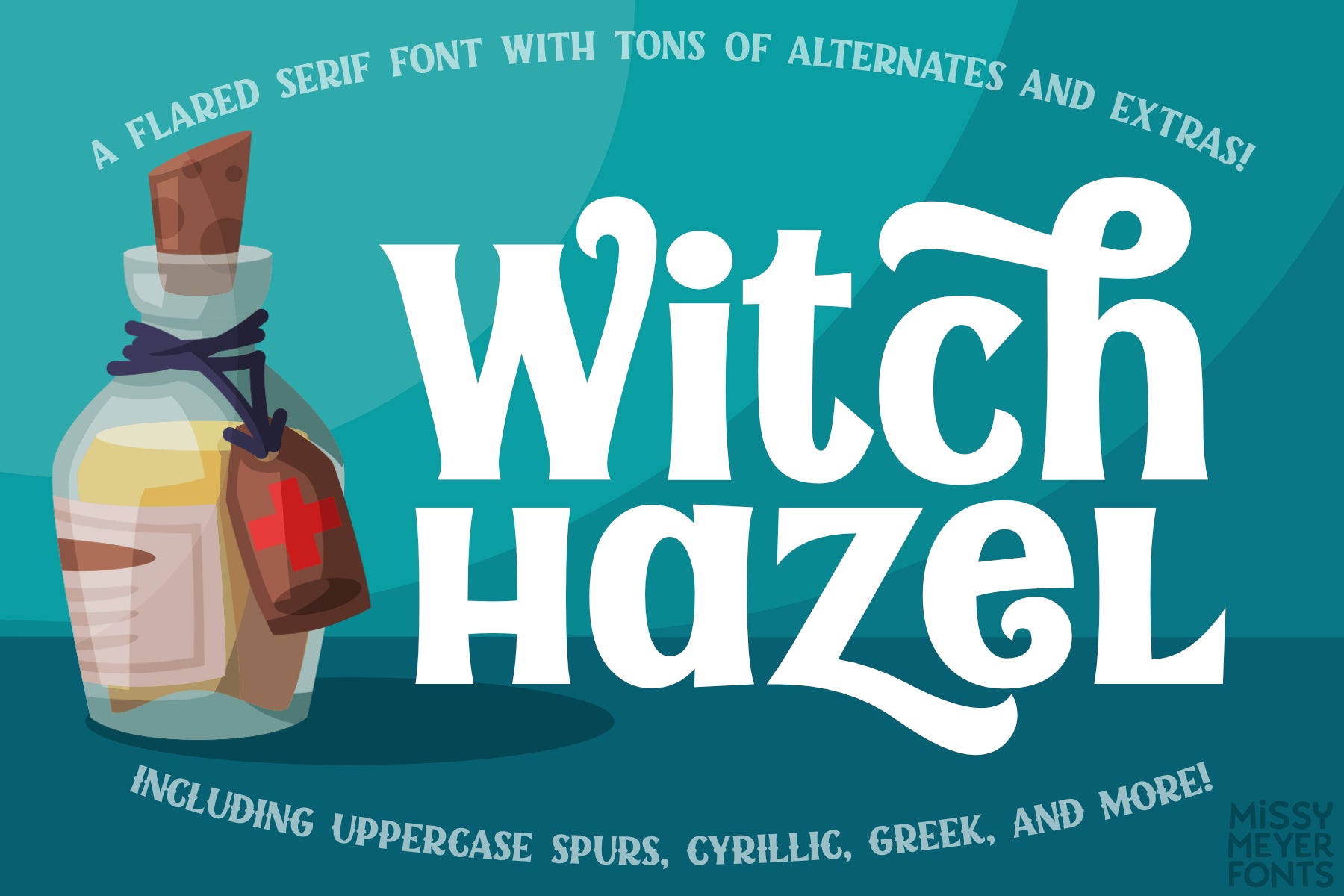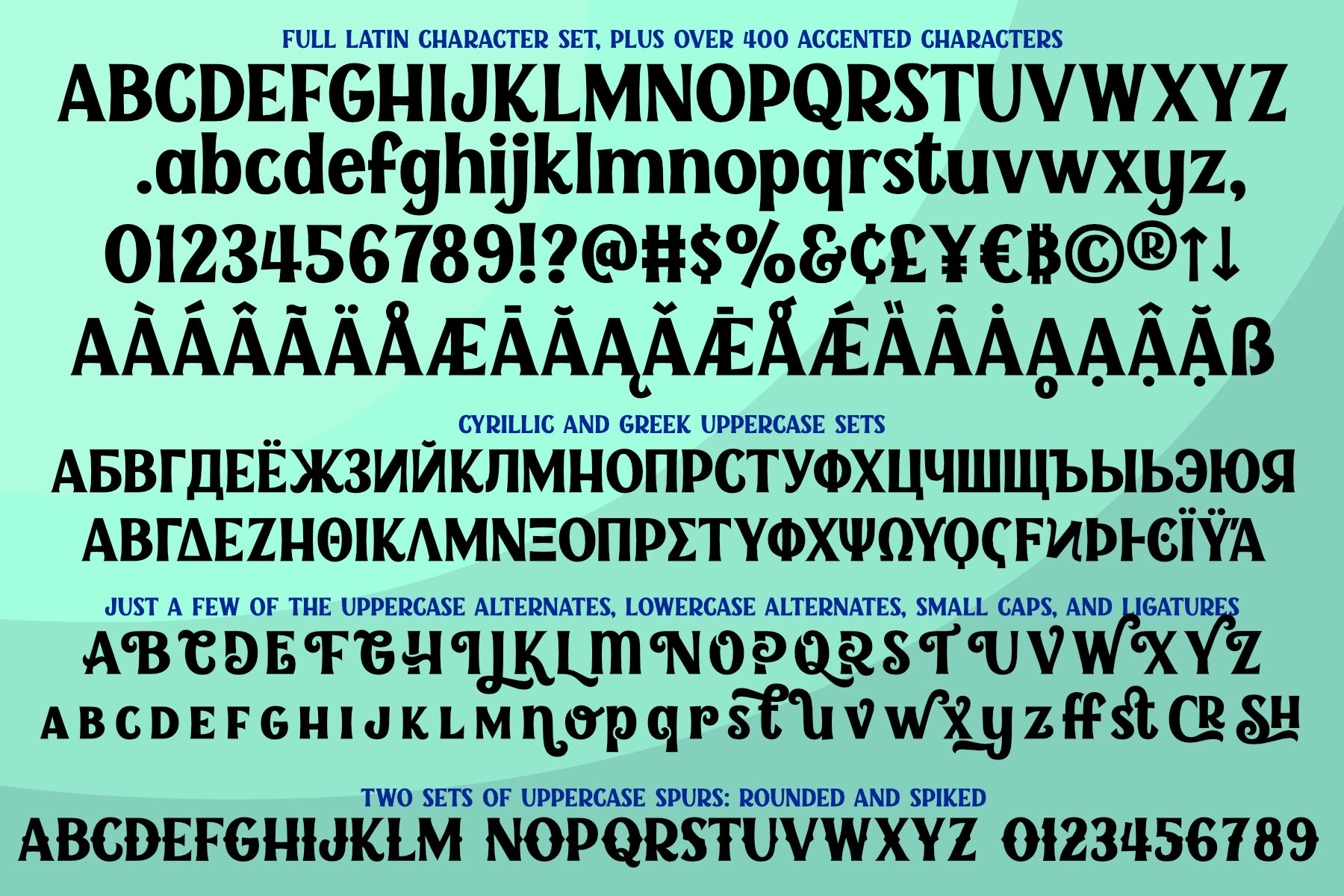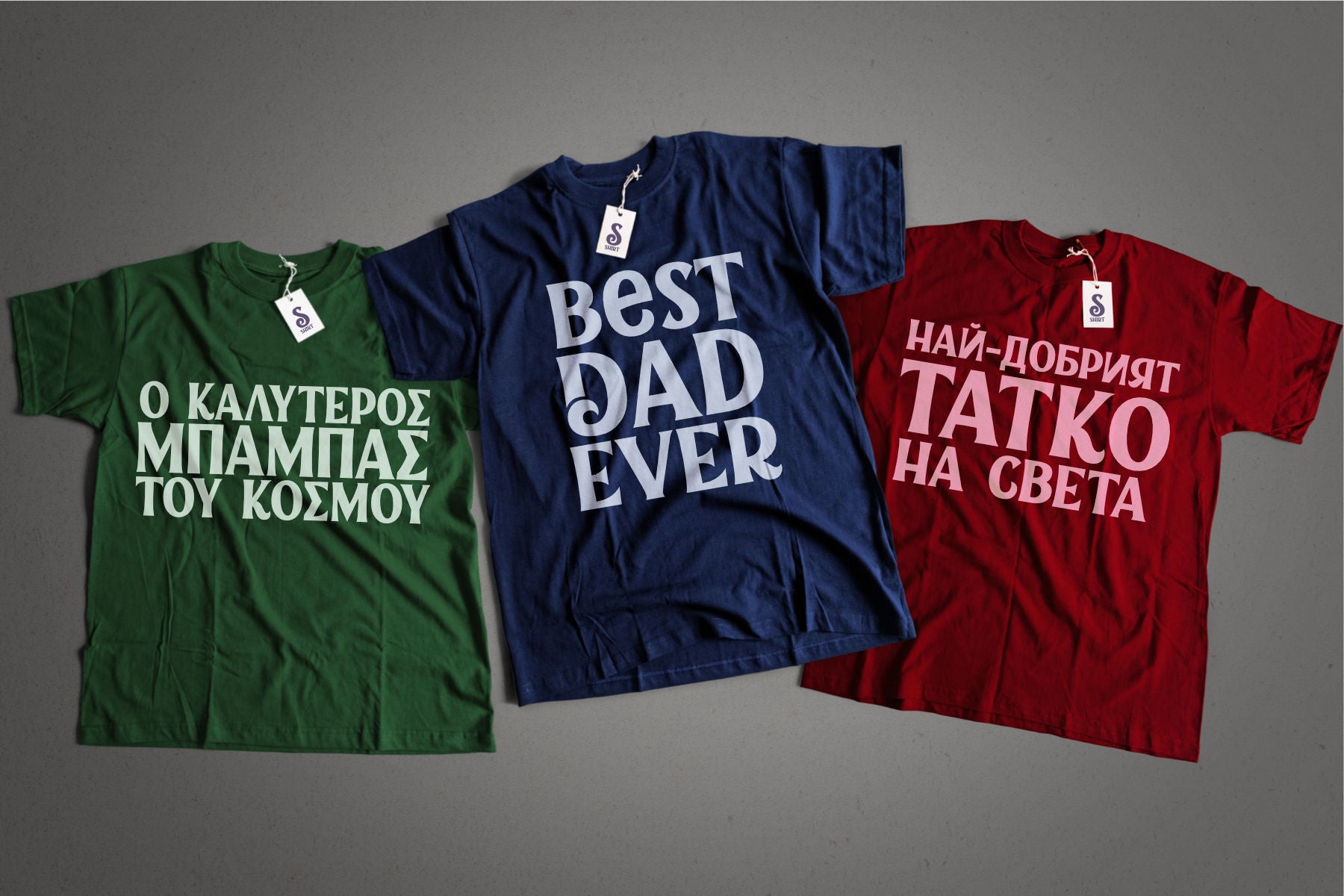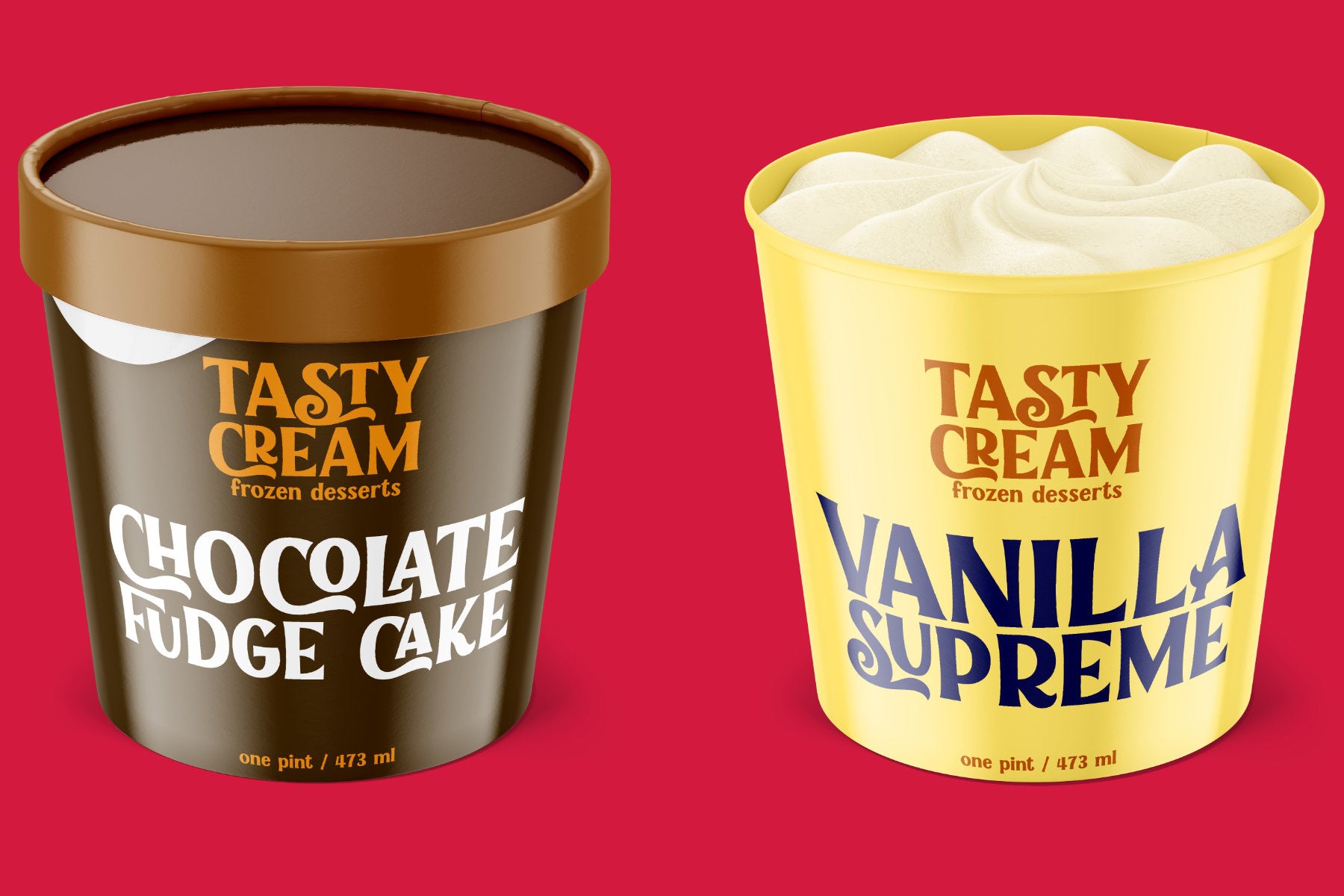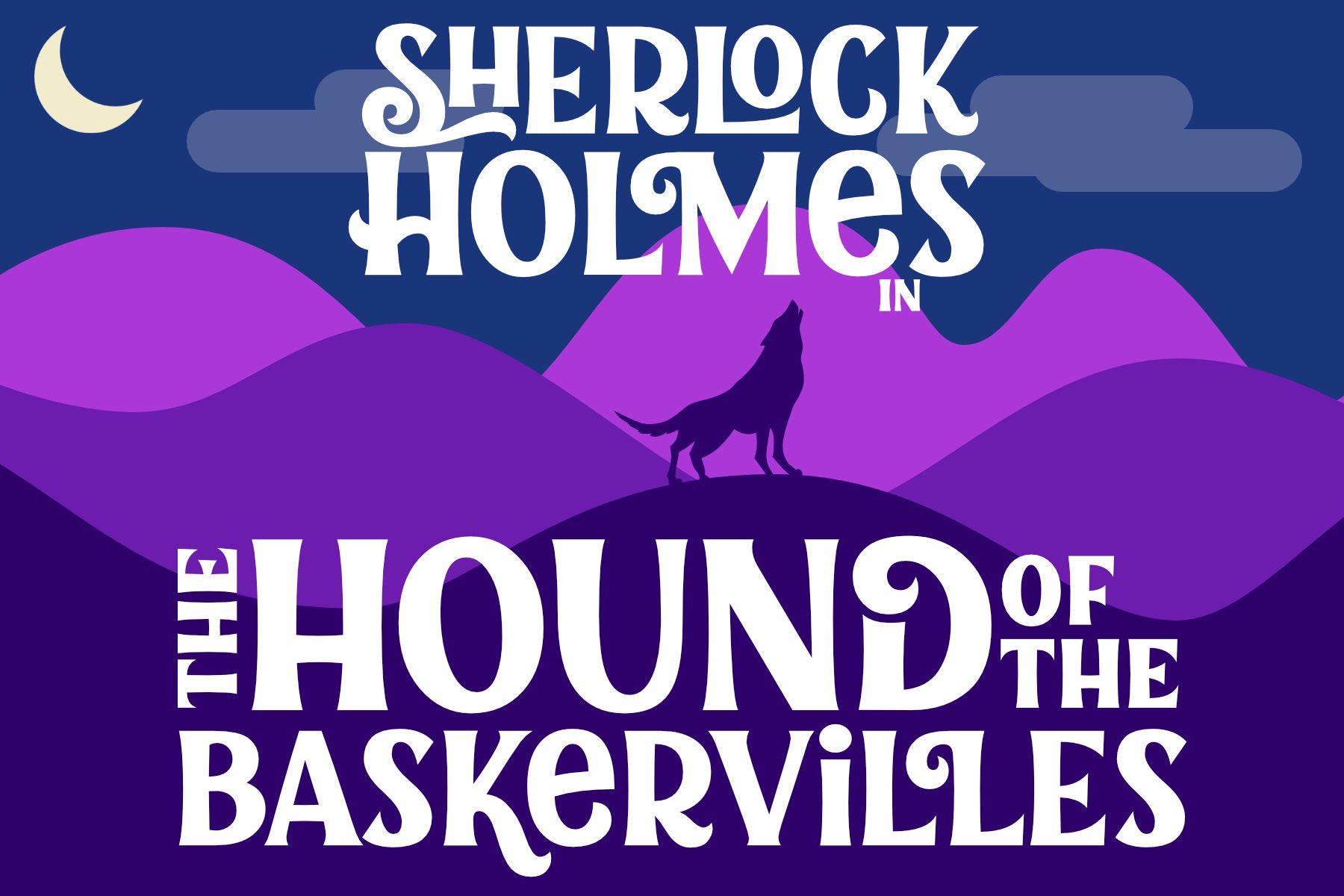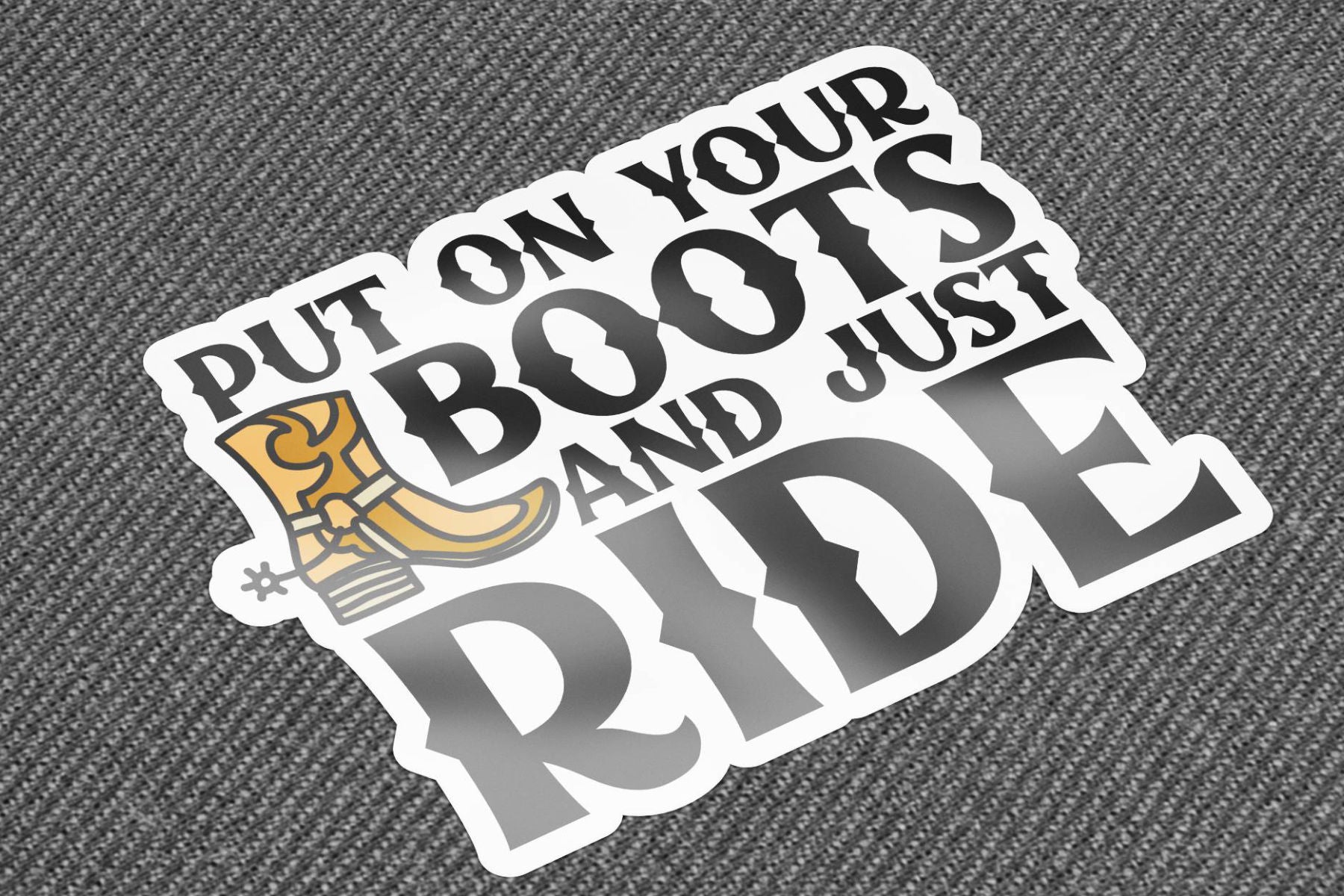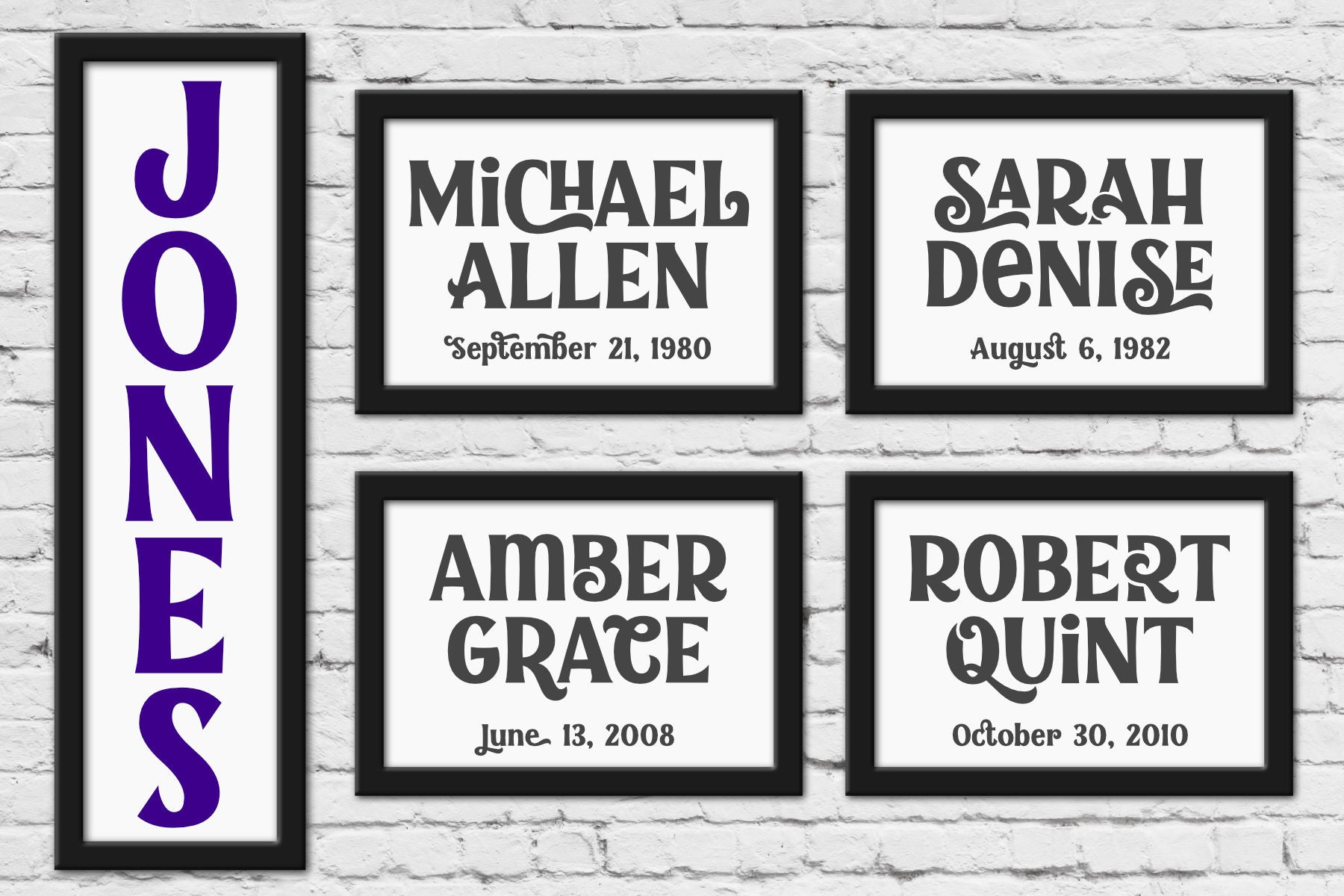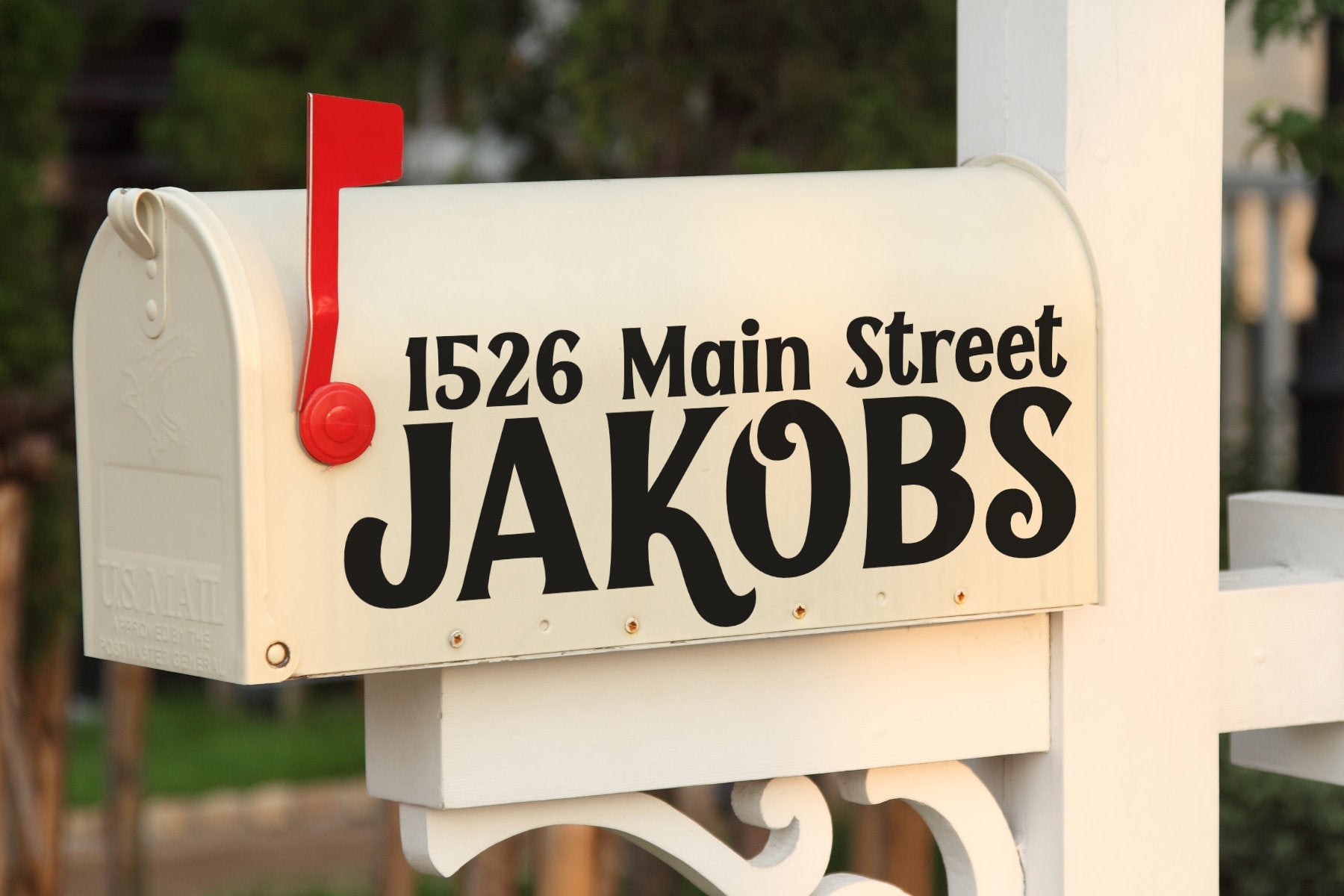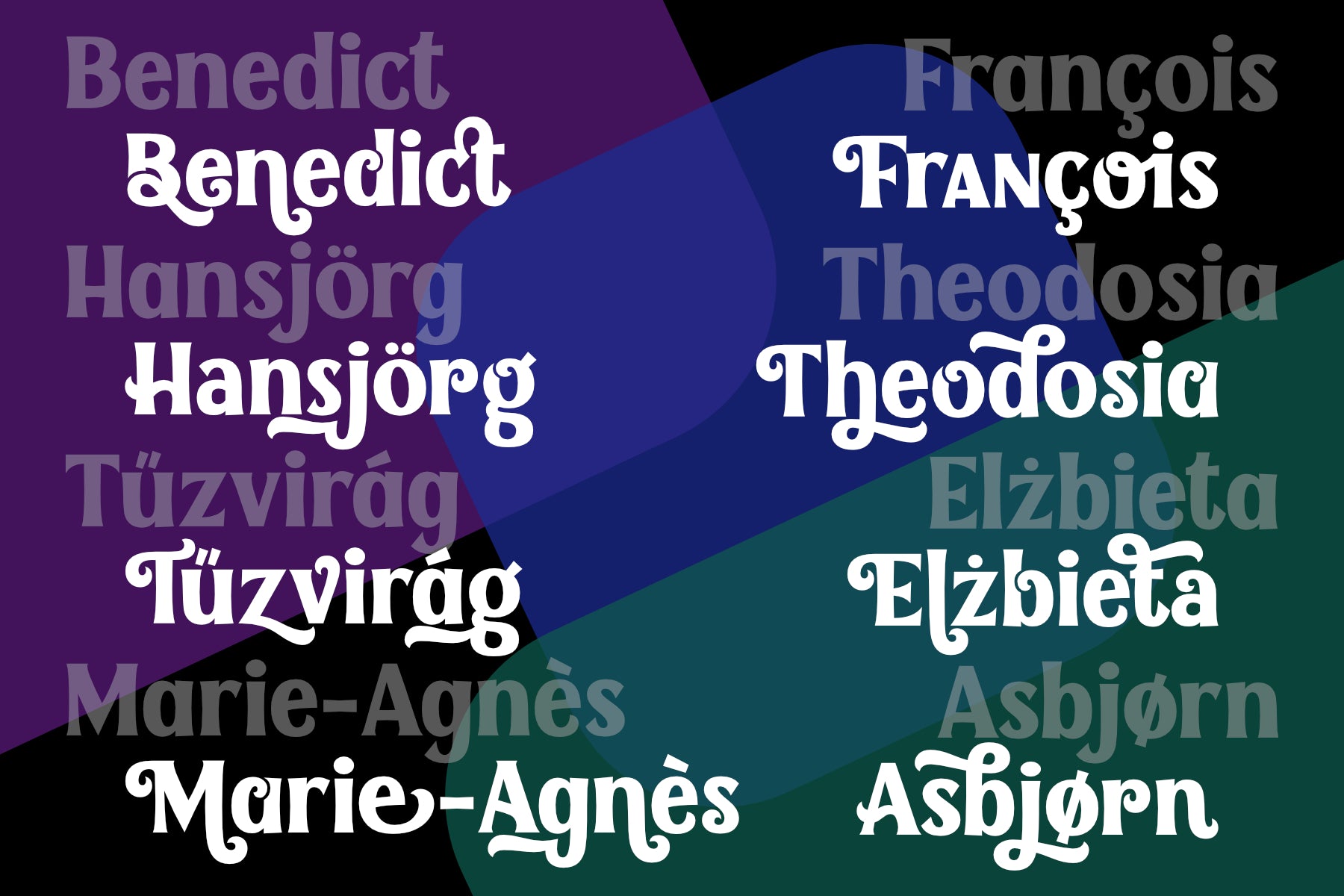
I've been working on Witch Hazel for months; just when I think it's done, I come up with a few more alternatives that I'd like to include! I'm finally done with this monster clocking in at over 1150 glyphs. It's finally time to set it free so you can use it!
The slightly flared serifs allow Witch Hazel to bridge the vintage and the modern; it's great for pirates and fairy tales, but also great for logos and branding! And with a group of over 300 alternates, ligatures, and extras, you can make a fun design for any holiday, from Christmas to Halloween to Valentine's Day! There are 40 double-letter ligatures, between 1–8 decorative alternates for each letter, small caps, and two sets of uppercase and number alternates with spurs!
Witch Hazel also includes over 430 extended Latin characters for language support, a full set of Greek uppercase letters, and a full set of Cyrillic uppercase characters.